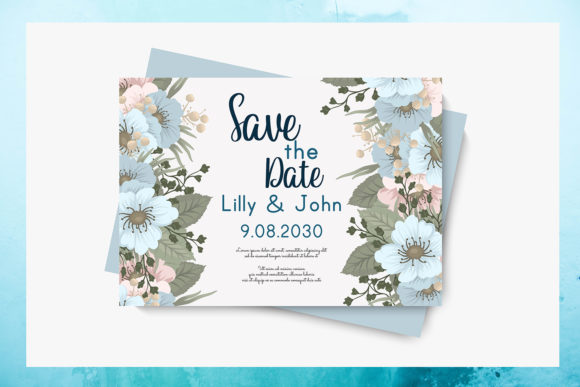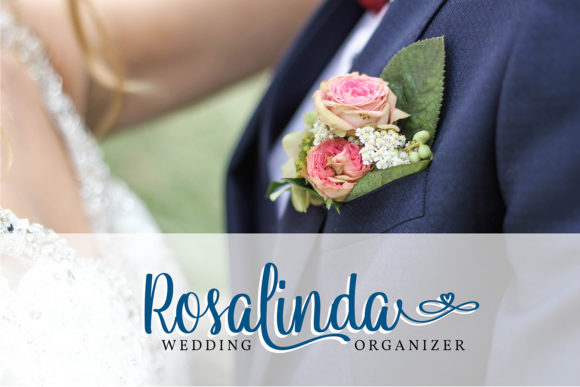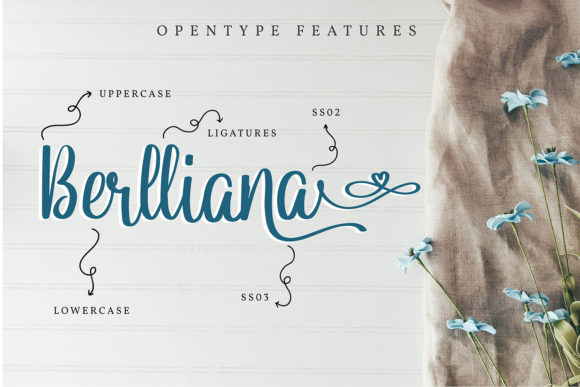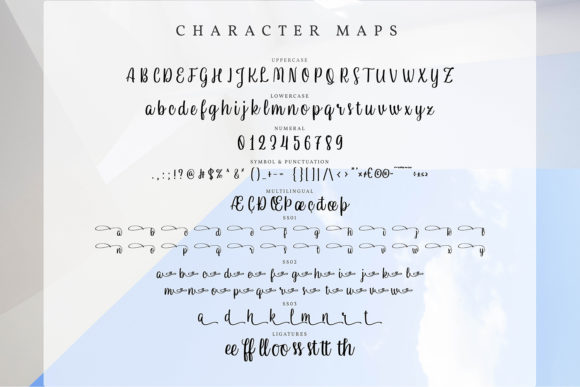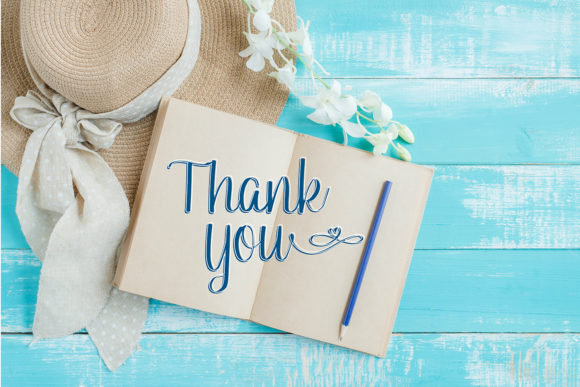
Aquanetta Font: Elevate Your Designs with Elegance and Sophistication
Are you a designer or crafter looking for a font that can add a touch of elegance and sophistication to your projects? Look no further than the stunning Aquanetta Font. This beautiful script font is perfect for creating original and outstanding designs that will leave a lasting impression.
What Makes Aquanetta Font So Special?
Aquanetta Font is a PUA (Private Use Area) encoded font, which means that you can access all of the glyphs and swashes with ease. This feature makes it incredibly versatile and user-friendly, allowing you to experiment with different combinations of letters and flourishes to create unique and eye-catching designs.
Whether you’re a professional designer or a crafter looking to add a personal touch to your projects, Aquanetta Font is the perfect choice. Its elegant and flowing script style makes it ideal for a wide range of applications, including:
- Product labels and packaging
- Stationery and journals
Key Features of Aquanetta Font
Here are just a few of the key features that make Aquanetta Font so special:
- PUA encoded: Easy access to all glyphs and swashes
- Beautiful script style: Elegant and flowing, perfect for creating sophisticated designs
- Highly versatile: Suitable for a wide range of applications and projects
- User-friendly: Easy to use and experiment with, even for beginners
Tips for Using Aquanetta Font
To get the most out of Aquanetta Font, here are a few tips to keep in mind:
- Experiment with different swashes: Try out different combinations of swashes and glyphs to create unique and eye-catching designs
- Play with font sizes: Aquanetta Font looks great in a variety of sizes, from large and bold to small and delicate
- Pair with other fonts: Try pairing Aquanetta Font with other fonts to create interesting and contrasting designs
In conclusion, Aquanetta Font is a stunning script font that is perfect for designers and crafters looking to add a touch of elegance and sophistication to their projects. With its PUA encoding, beautiful script style, and high versatility, it’s an excellent choice for a wide range of applications. Whether you’re looking to create original and outstanding designs or simply want to add a personal touch to your projects, Aquanetta Font is sure to impress.